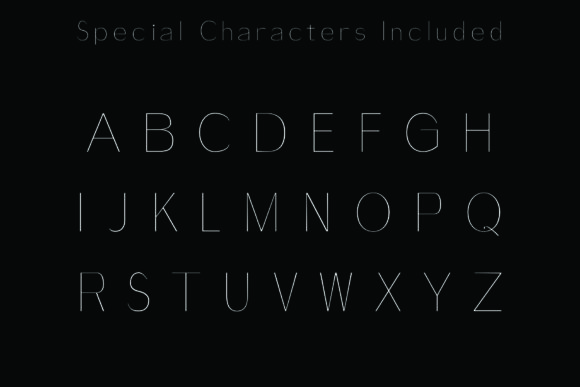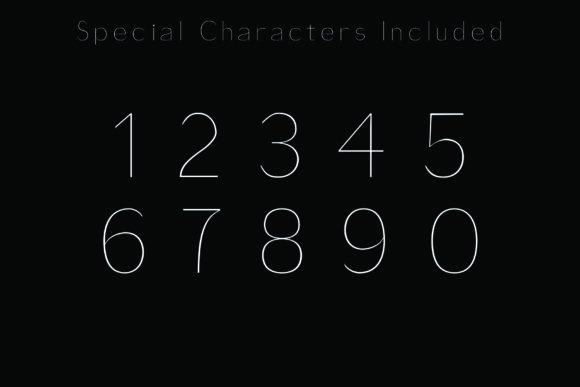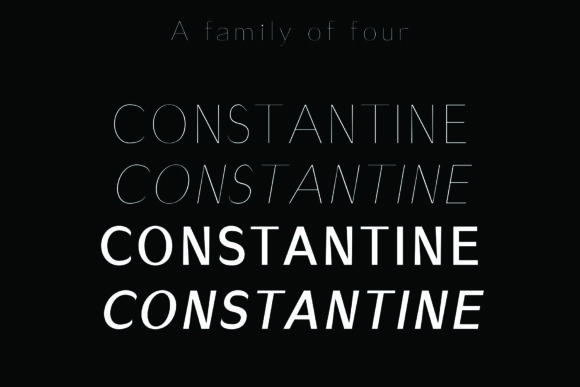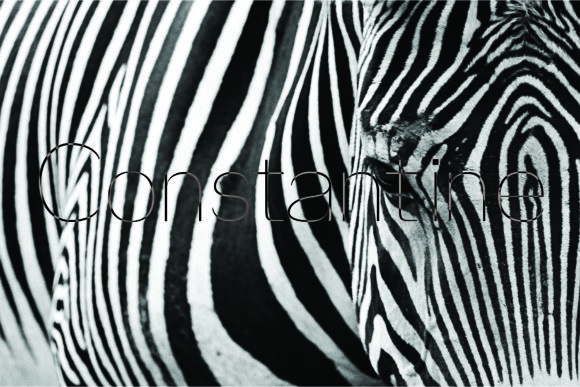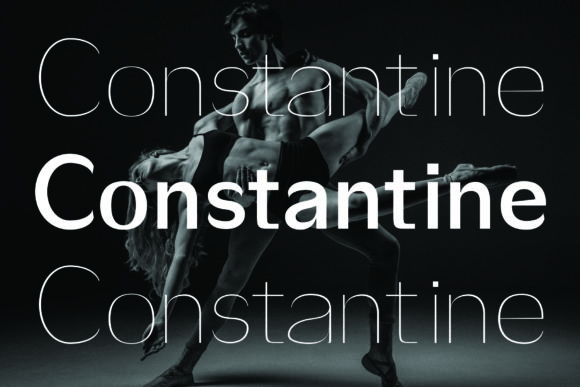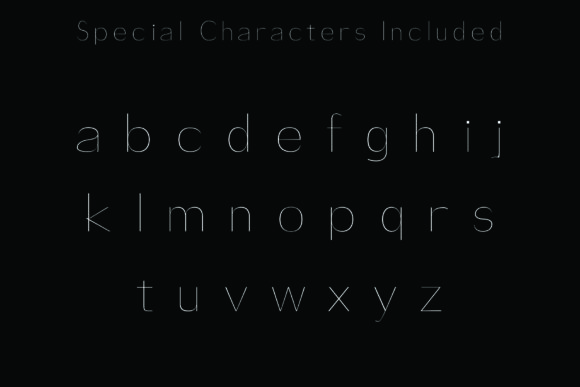
I still remember the frustration of working on a design project, hours spent crafting the perfect layout, only to be stumped by one thing: the font. My client wanted something sleek, modern, and sophisticated, but not too flashy. I scoured the internet, tried out countless typefaces, but none seemed quite right. That was until I stumbled upon Constantine Font. ✨
An Honest Review of Constantine Font
Constantine Font has become a go-to in my design toolkit, and for good reason. Here are some things I love about it:
- ✅ Sophisticated yet minimalist: Constantine’s simple style makes it perfect for use in any design project, from corporate branding to personal crafts.
- ✅ Highly versatile: It works well in both digital and print formats, and can be used for body text, headings, or even titles.
- ✅ Elegant lines: The font’s clean lines and curves give it a timeless feel that’s hard to achieve with more ornate typefaces.
Of course, no font is perfect, and Constantine has a few quirks:
- ⚠️ Limited glyphs: While Constantine has a range of characters, it’s not as extensive as some other fonts. This might be a consideration for projects requiring a lot of special characters.
- 🤔 Not ideal for body text: While it’s beautiful, Constantine is better suited for headings or titles. For longer blocks of text, a more traditional serif or sans-serif font might be more readable.
The Backstory of Constantine Font
Constantine Font was designed with the goal of creating a simple, yet sophisticated typeface that could be used in a variety of design projects. Inspired by classic serif fonts, Constantine’s designer aimed to create a font that was both elegant and versatile. While the designer’s identity may be unknown, their vision for Constantine has clearly resonated with designers around the world.
| What is Constantine Font best used for? | Constantine Font is best used for headings, titles, and short blocks of text. Its elegant lines and sophisticated feel make it perfect for corporate branding, personal crafts, and design projects. |
| Does Constantine Font have a wide range of characters? | While Constantine Font has a range of characters, it’s not as extensive as some other fonts. It’s best suited for projects that don’t require a lot of special characters. |